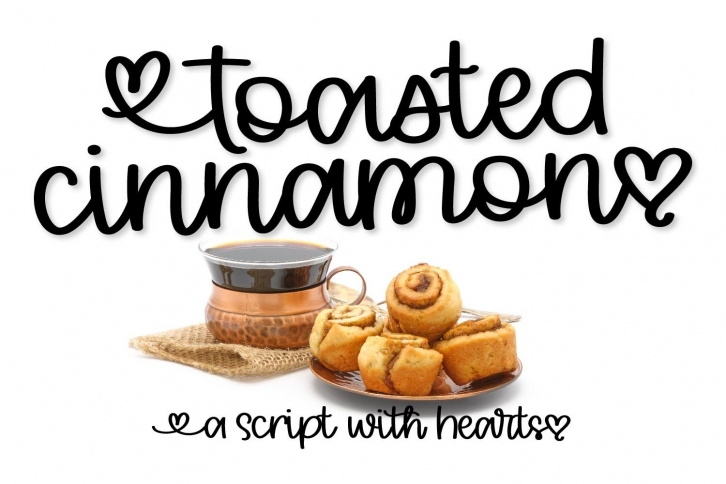
Toasted Cinnamon is a great font that was designed by Font Bundles Store. Imagine the amount of combinations you can create using this font! The archive is 21.73 MB and it was released on April 26, 2020. Toasted Cinnamon looks beautiful on wedding invitations, greeting cards, logos, posters, labels, t-shirt designs, logos, business cards and is perfect for use in ink or watercolor works, fashion, magazines, packaging and food menus, children's books and more!